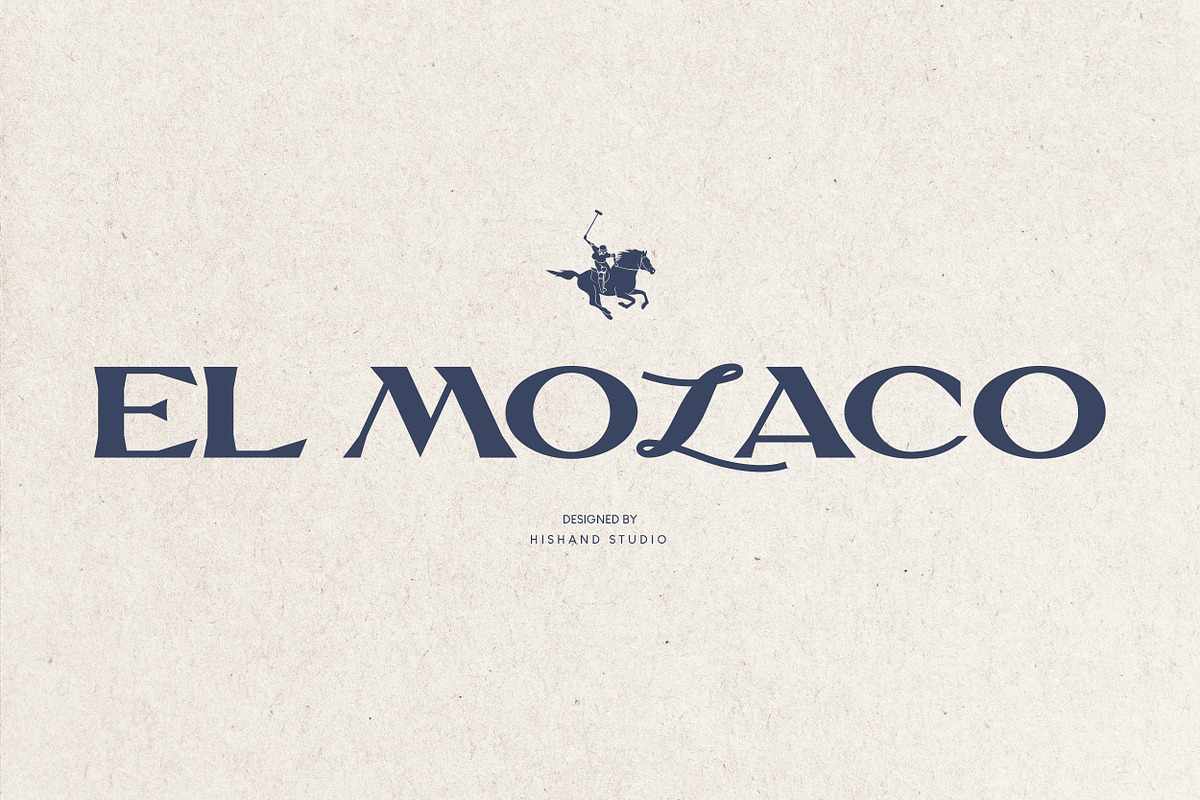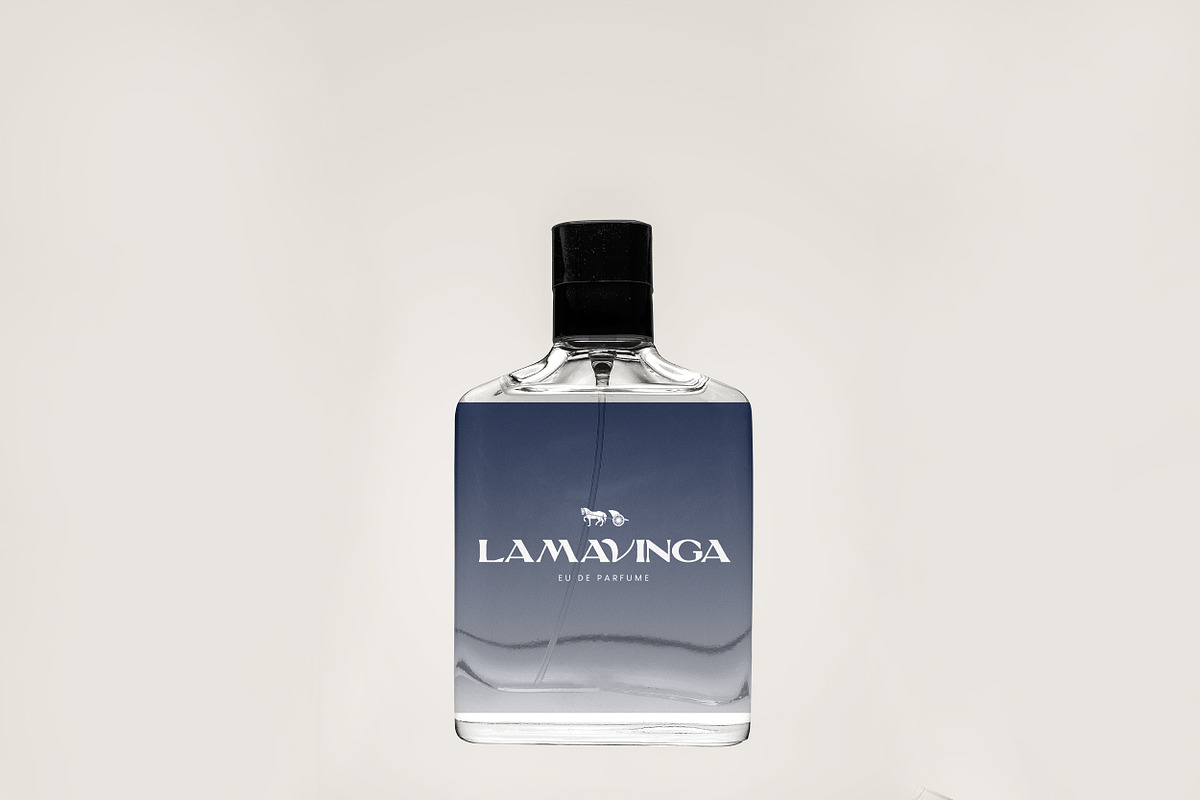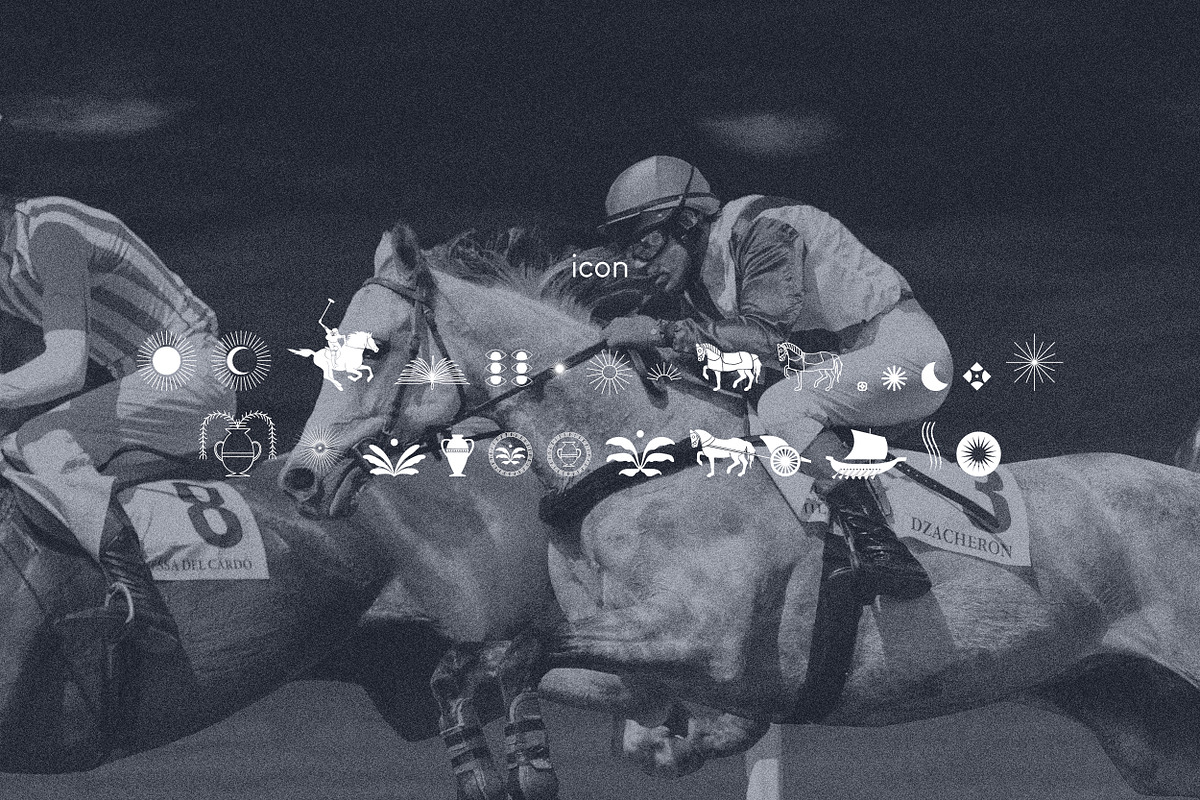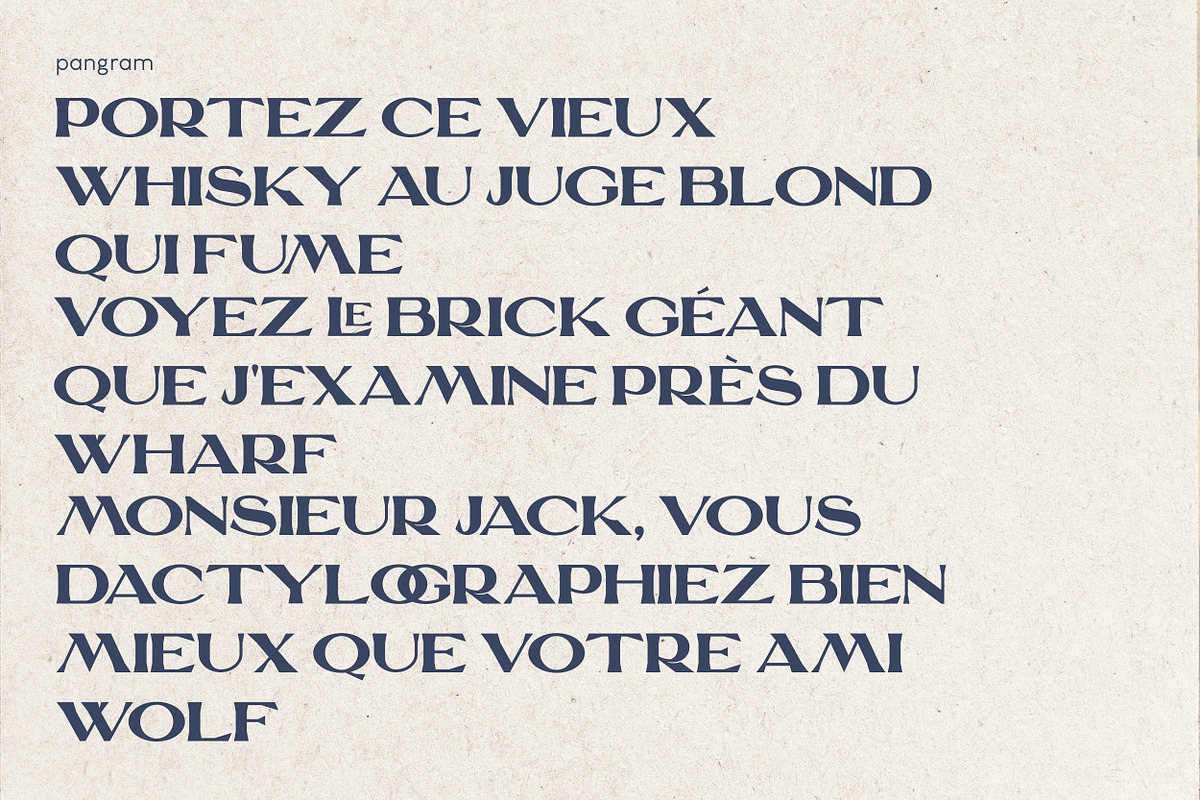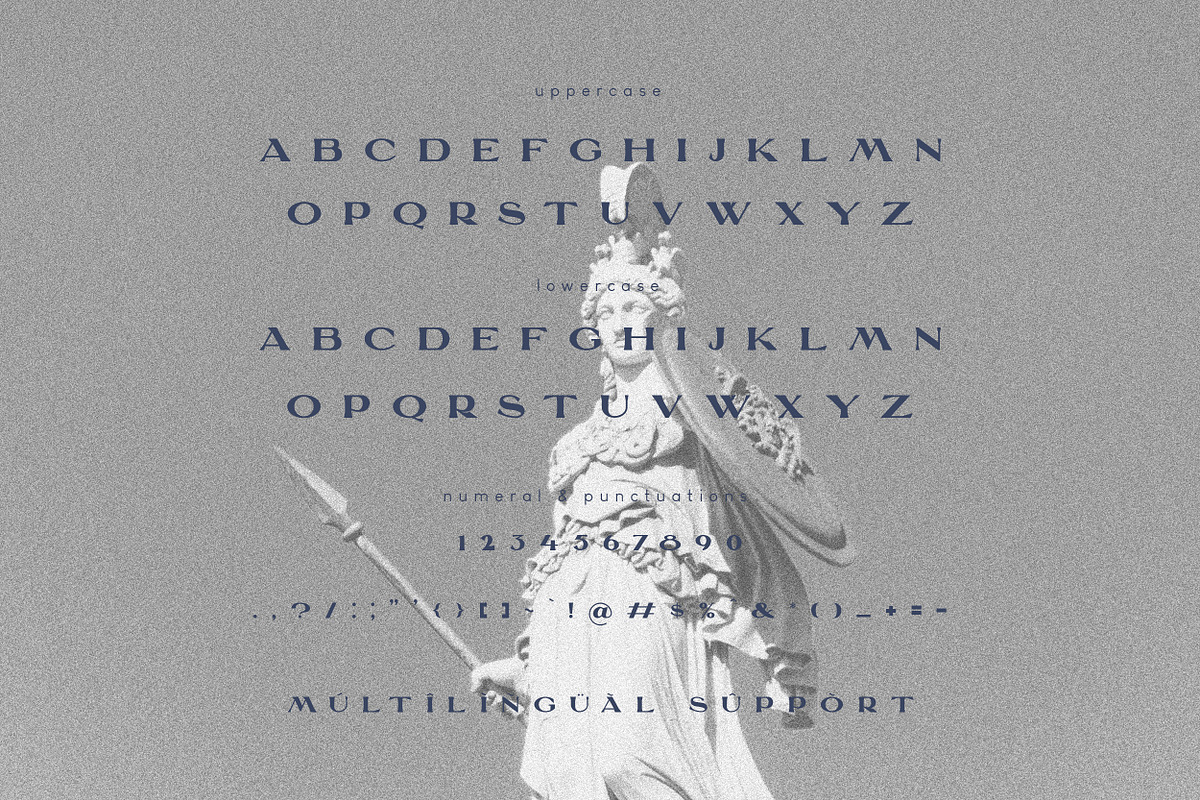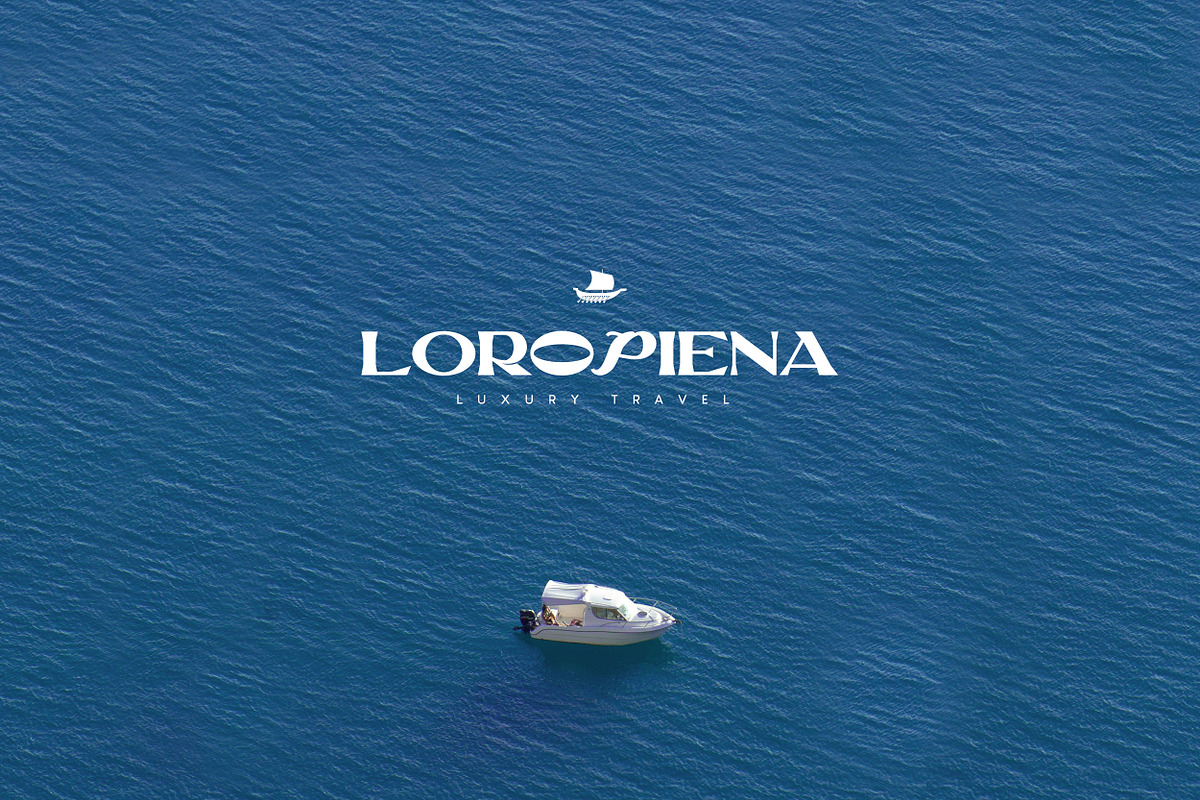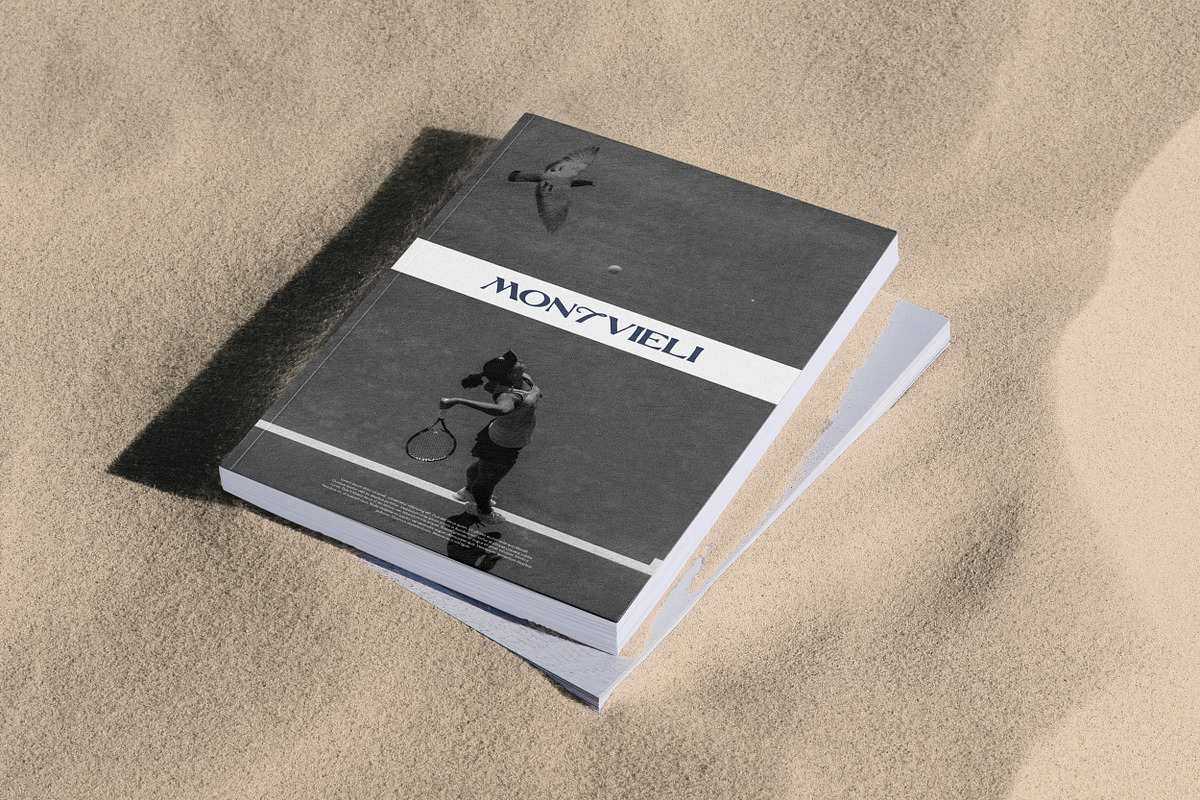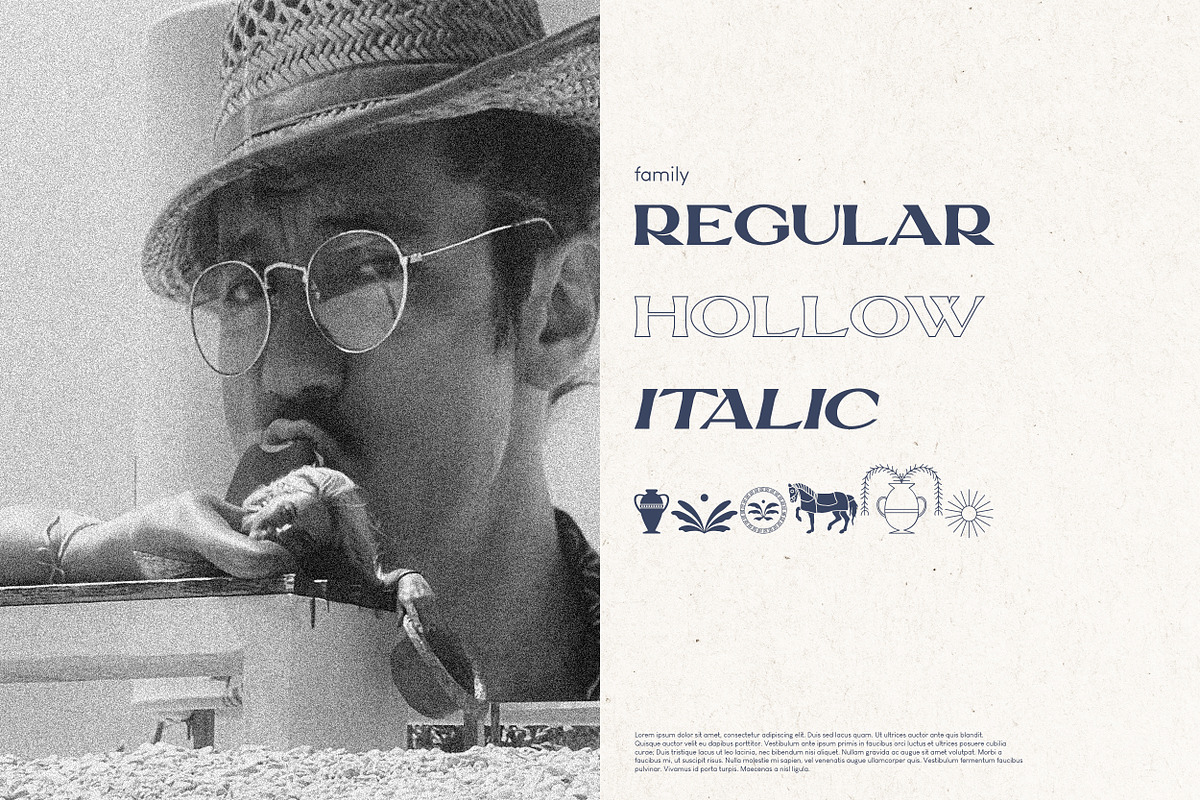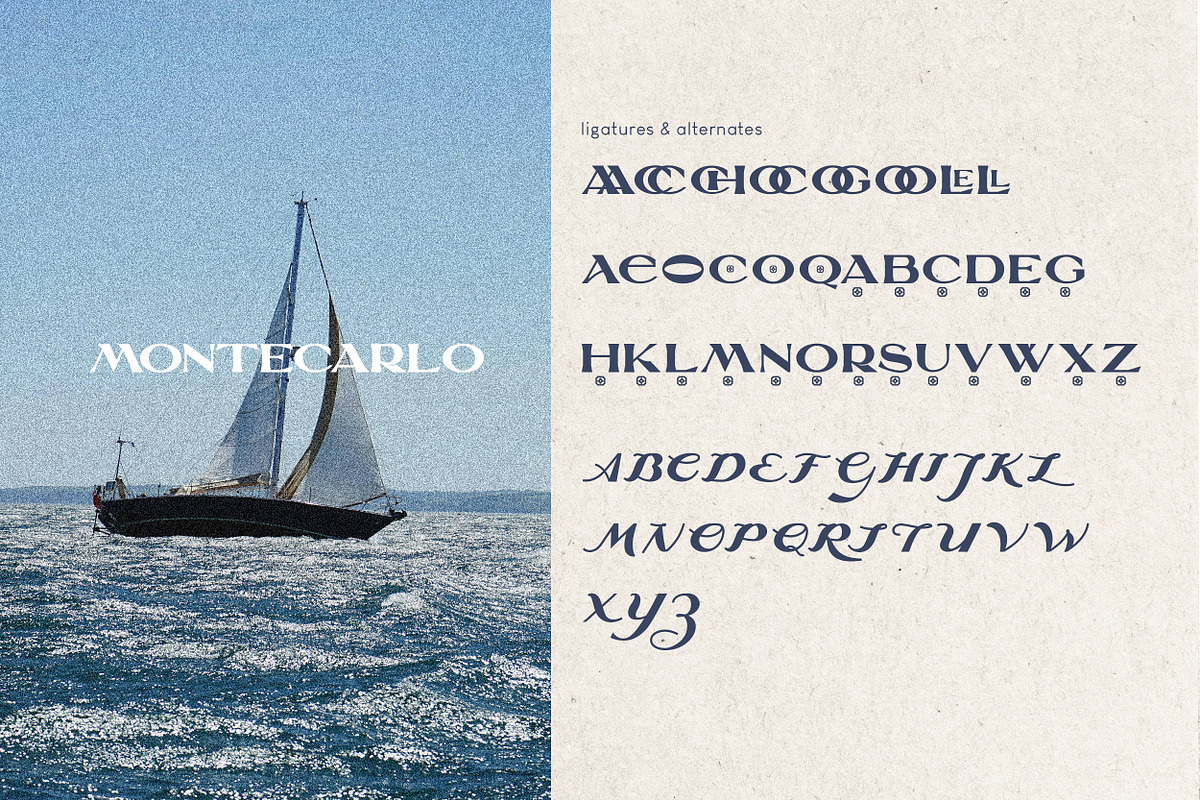
EL MOLACO Display Font
EL MOLACO, a bold serif display font that embodies the essence of luxury and old-money elegance. This newly released typeface is designed to make a statement with its robust and refined characters, perfect for creating impactful logos, sophisticated packaging, and a variety of high-end design projects. EL MOLACO's bold presence and timeless charm seamlessly blend classic luxury with contemporary style, making it an ideal choice for brands that aspire to convey heritage, prestige, and exclusivity. Whether used in fashion, luxury goods, or any upscale market. Complete with
- alternates
- regular
- hollow
- italic
- icon
- kerning
- multilingual support